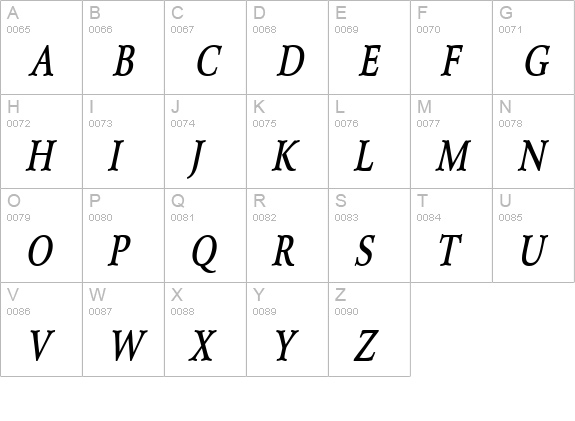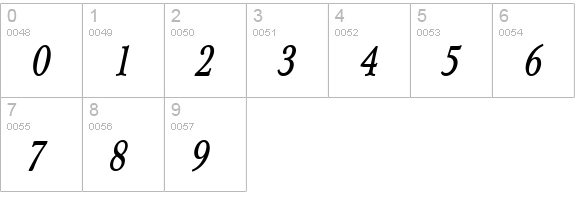
Array-Condensed Bold Italic Font Details
Array-Condensed Bold Italic is a strong, high-contrast, condensed-width, italic variant in the Array typeface family \xE2\x80\x94 well suited to headlines, attention-grabbing titles, and strong calls-to-action.
Array-Condensed Bold Italic font is a sleek and modern typeface designed for bold and eye-catching designs. Its condensed style makes it ideal for fitting more text in limited spaces without sacrificing readability. The bold weight adds a strong and authoritative presence to any project, while the italic styling brings a touch of elegance and sophistication. This versatile font is perfect for a wide range of design applications, including headlines, branding, packaging, and more. Whether you're creating a striking poster or designing a sleek logo, Array-Condensed Bold Italic font will help your designs stand out. And the best part? This amazing font is available for free download at FontsMarket.com! Don't miss out on the opportunity to add this stylish and professional typeface to your font collection without spending a dime. Download Array-Condensed Bold Italic font today and take your designs to the next level!